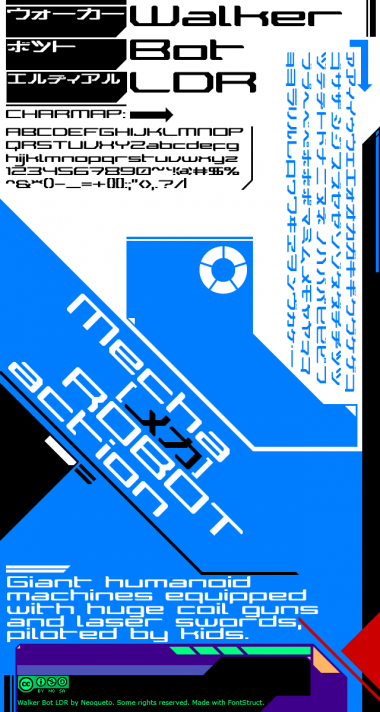
Hell's yes! Mecha rock. I really dig Japanese when it's angular. Nice job! I would have done a few of the Roman characters a bit differently, but otherwise I like this.
Good job. Kudos for the extended character set including Katakana 10/10.
Nice latin, nice katakana. :)
noice one from the archives. am currently in a big BallisticNG modding phase (the game did use some of your fonts most notably LDR Manufacture) so I really appreciate the existence of more of these quality sci-fi fonts